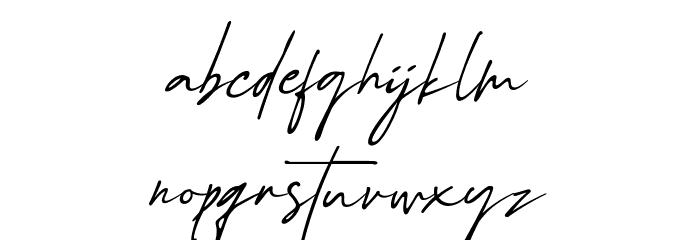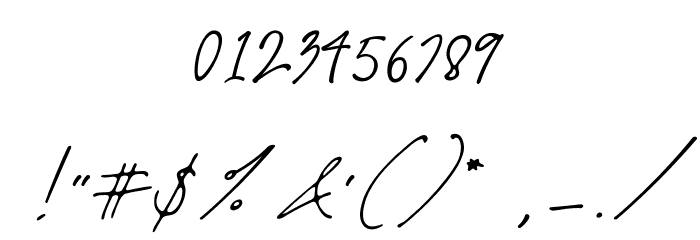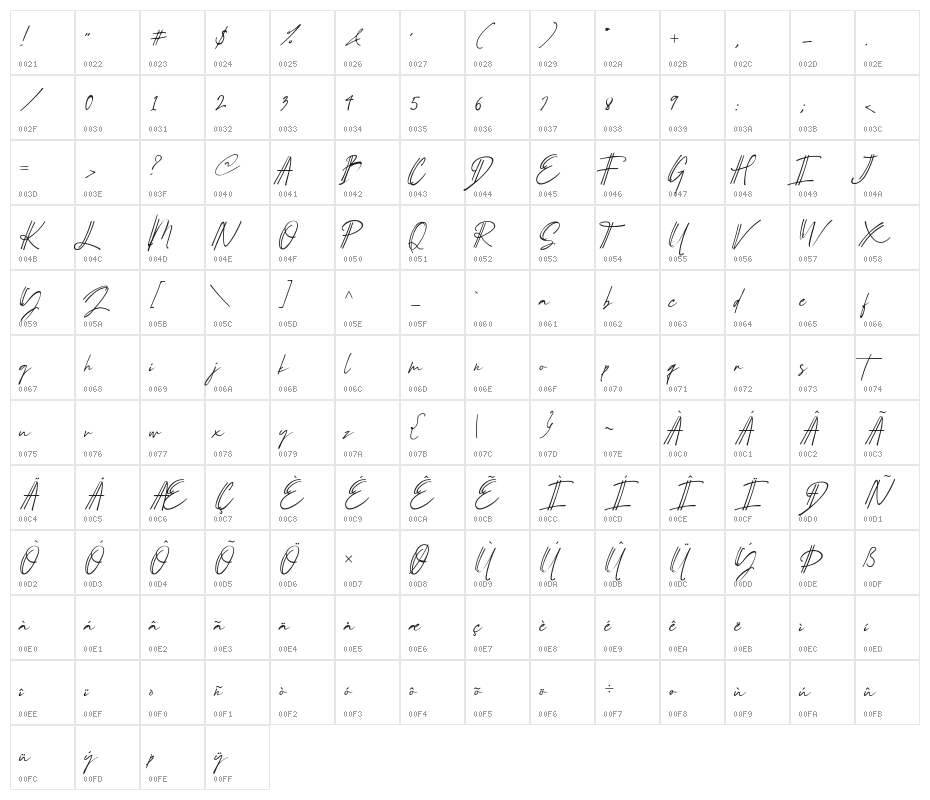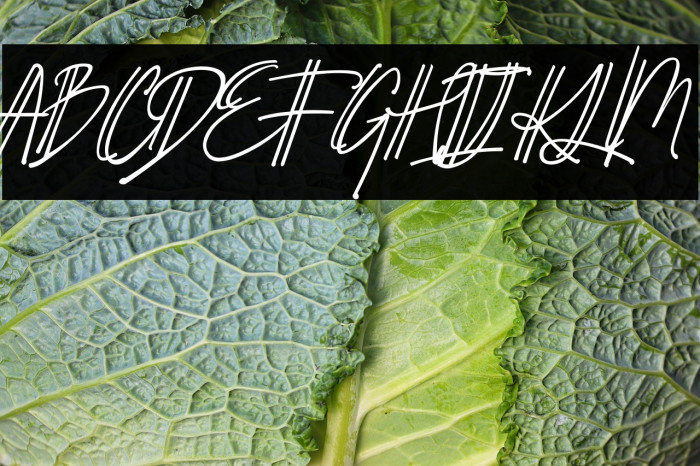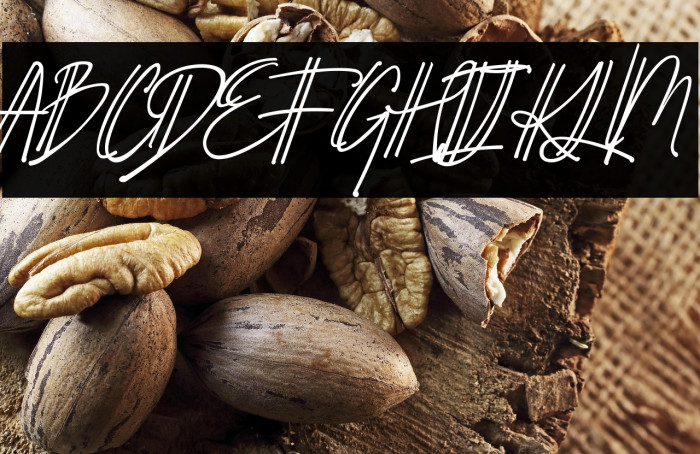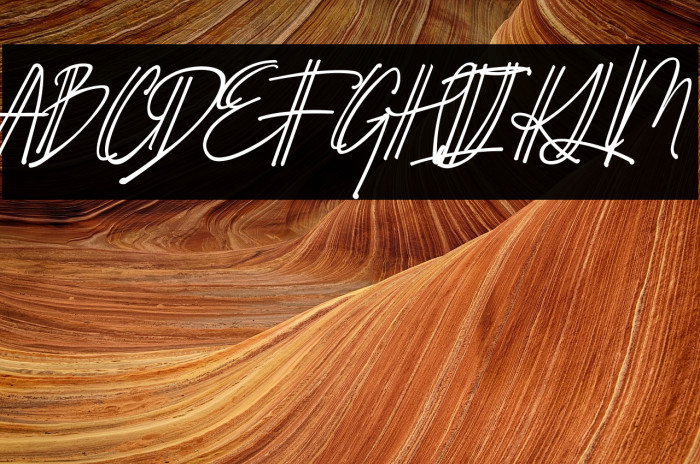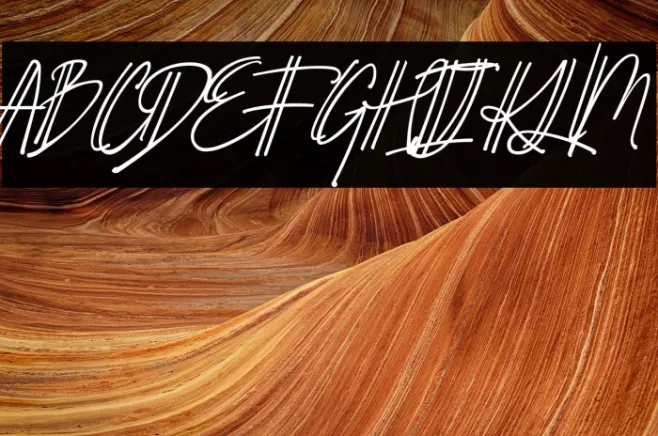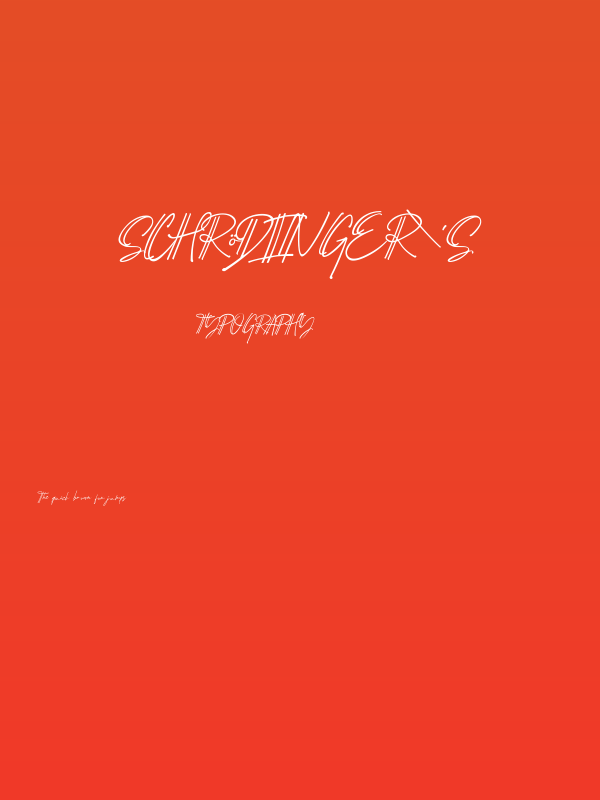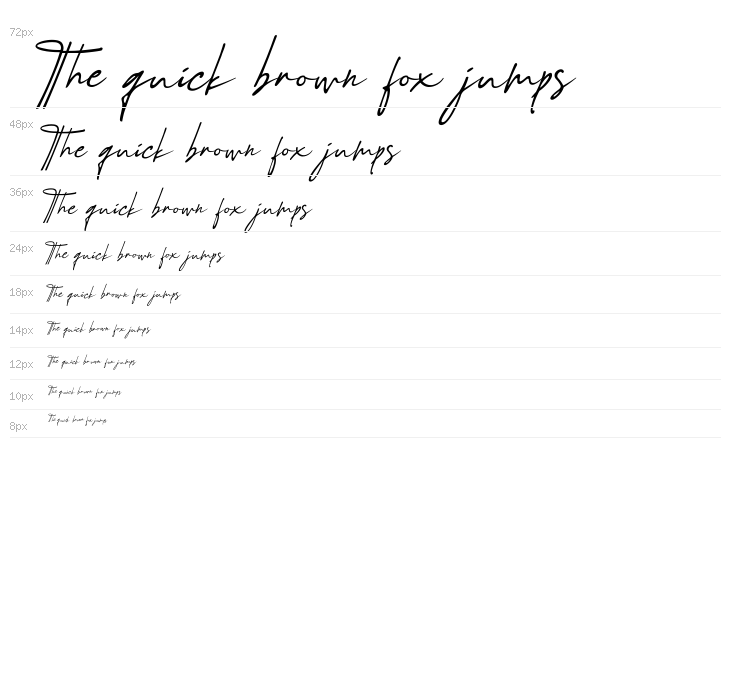
Schrödinger's Font
This font features a dynamic and expressive handwritten style, characterized by its fluid and cursive letterforms. The uppercase letters are bold and striking, with a sense of movement and energy, while the lowercase letters maintain a consistent flow with elegant curves and loops. The numerals are clear and distinct, complementing the overall aesthetic. Special characters are seamlessly integrated, adding versatility to the font. The strokes vary in thickness, providing a natural and organic feel. This font is ideal for projects that require a personal touch or an artistic flair.
A dynamic and expressive handwritten font with fluid cursive letterforms.
- Font: Schrödinger's
- Proposed Projects: Ideal for invitations, greeting cards, branding, and artistic projects.
- Category: Handwritten
- Use Case: Logos, Headlines, Artistic projects